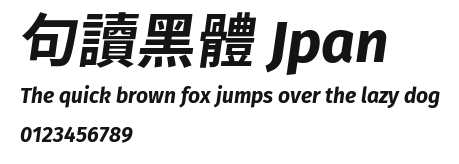
句讀黑體 Jpan Preview
• Font Name: 句讀黑體 Jpan
• Font ID: 句讀黑體 Jpan Bold Italic
• Full Font Name: 句讀黑體 Jpan Bold Italic
• PostScript Name: Judou-Sans-Jpan-Bold-Italic
About 句讀黑體 Jpan.ttf
句讀黑體 Jpan.ttf is a modern, elegant sans-serif font designed for ultimate readability and visual harmony. Perfect for branding, headlines, web design, and print materials.